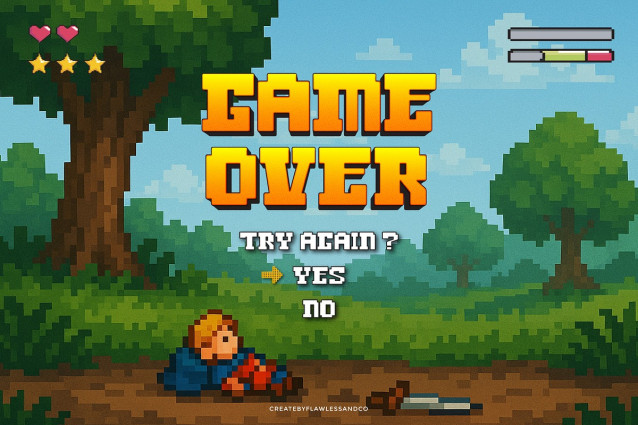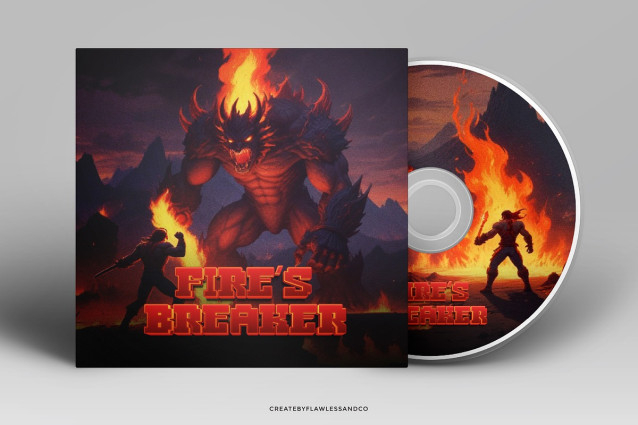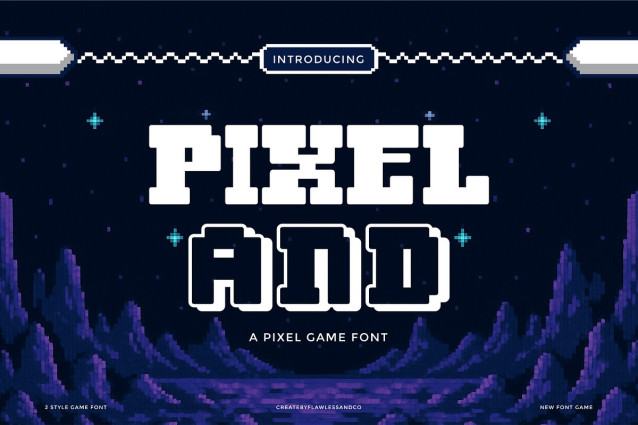
Pixeland Font
Pixeland Font is a nostalgic pixel typeface crafted to bring classic video game vibes into your modern designs. With its blocky letterforms and 8-bit aesthetics, Pixeland is perfect for gaming titles, arcade posters, stream overlays, and any project that craves a playful retro feel. Inspired by the golden era of pixel graphics, Pixeland is designed to stand out in both digital and print displays. Whether you’re developing a pixel-style game or creating retro branding, Pixeland offers sharp legibility and fun character in every glyph.